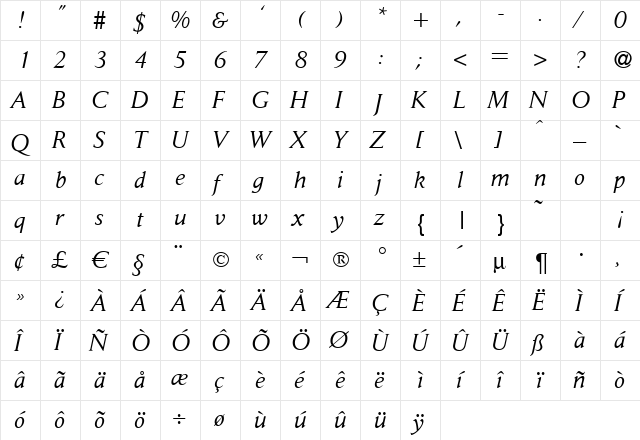
D650-Roman Italic
Design Context for D650-Roman Typeface
D650-Roman offers clean, dependable letterforms without strong stylistic allegiance, making it a practical choice for designers who need flexibility. Its italic angle brings a sense of urgency and motion to the letterforms.
Pro Tip: Use D650-Roman for emphasis, pull quotes, and subheadings where its slanted energy can add rhythm to the layout.